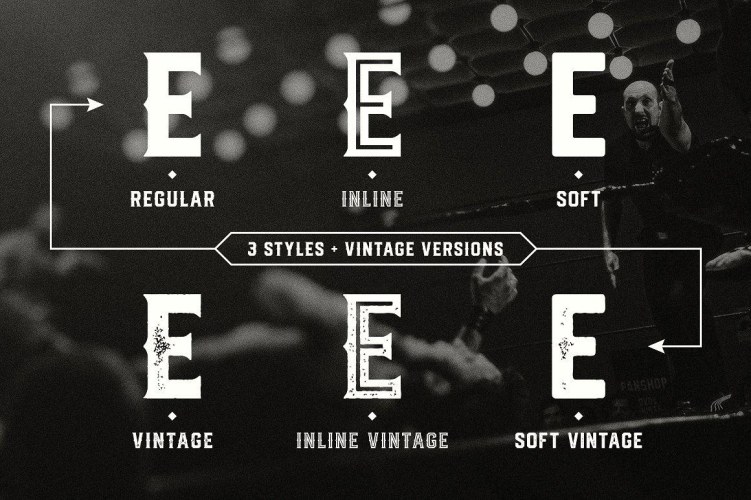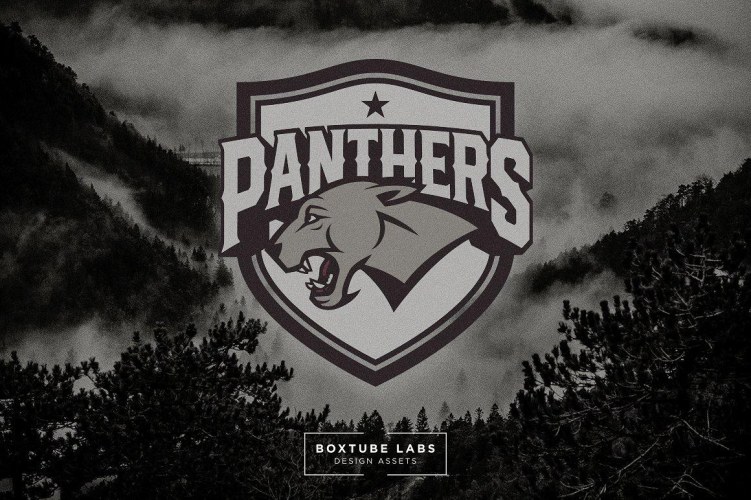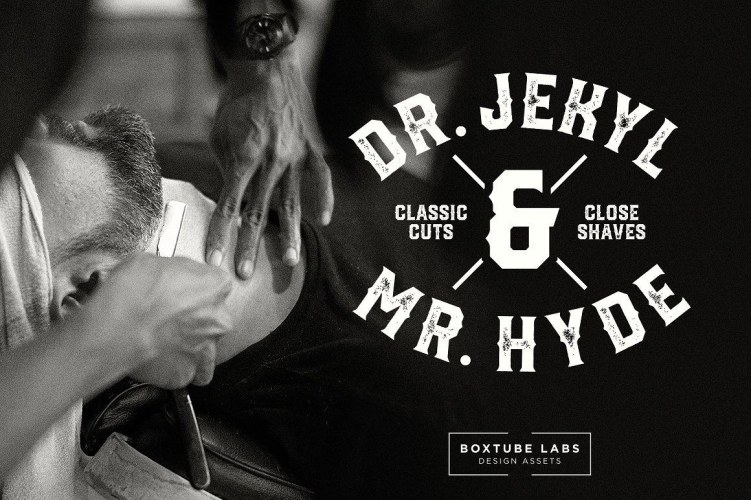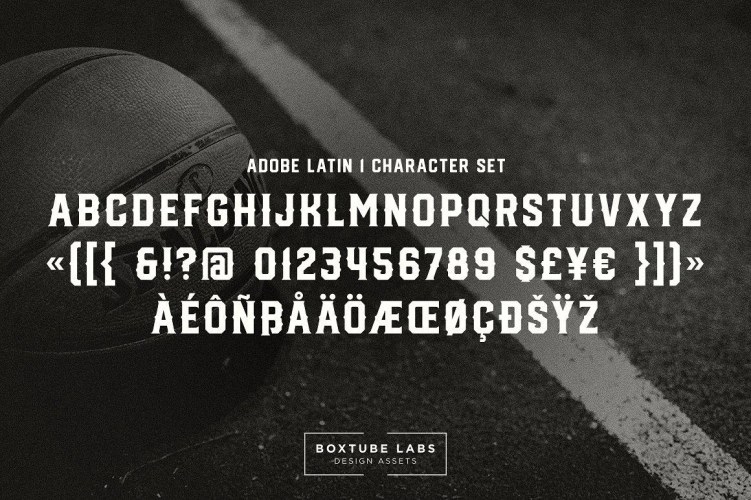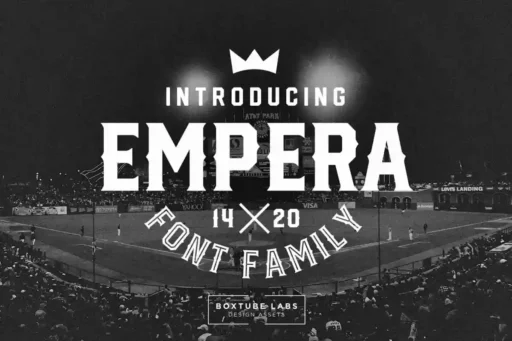
Empera Font
Meet Empera, an athletic font family that reflects courage and power due to its bold and multi-purpose design. This versatile typeface comes in six unique styles, giving designers the freedom and diversity they require for their projects. Empera’s solid and confident visual appeal guarantees that whatever you’re creating—sports logos, branding materials, posters, or apparel designs—your message will come through arrestingly.
What makes Empera different is its focus on details and realism. The vintage character has upper and lowercase versions with other renditions, thus creating a natural, worn look and an authentic touch to your designs. Such a gentle aspect makes your creations gain depth and character, which makes them unique and ageless.
Empera’s character set has complete Adobe Latin 1, so the typeface is compatible with all Western languages. Empera translates from Afrikaans to Swedish, ensuring that your message can reach different people worldwide.
Empera Font is built for size: event posters, hero headlines and billboard-style layouts.
High contrast display type like Empera Font reads instantly in thumbnails and motion graphics.